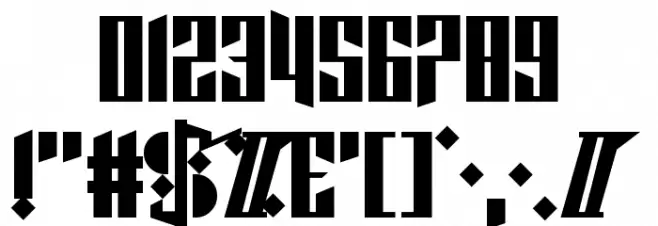
Cyberpunk Sealion Font
Cyberpunk Sealion Description
This font features a bold and striking design with a futuristic and edgy aesthetic. The characters are constructed with sharp angles and geometric shapes, giving it a cyberpunk vibe. The uppercase letters are particularly distinctive, with intricate patterns and unique embellishments that add to the overall complexity. The lowercase letters maintain the same angular style, ensuring consistency throughout. Numbers and special characters are equally bold and stylized, making them stand out. This font is perfect for projects that require a modern and unconventional look.
A bold, angular font with a futuristic, cyberpunk style from Uncategorized fonts.
- Proposed Projects: Ideal for sci-fi themed designs, video game graphics, movie posters, and branding for tech companies.
- Overall Style: Modern, Futuristic